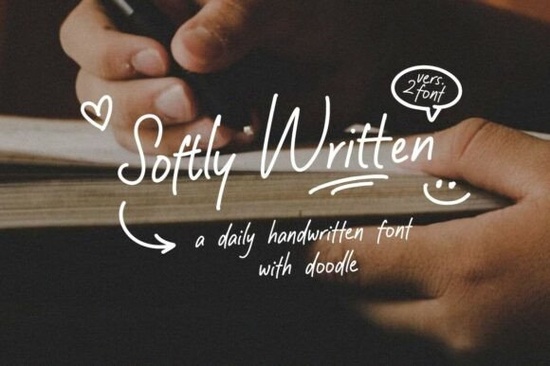
If you’ve ever wanted your designs to feel like a handwritten note passed between friends, Softly Written Font might be exactly what you’re looking for. It’s the kind of typeface that doesn’t shout it whispers. With smooth, natural strokes and little doodle-like flourishes tucked into letters here and there, this font brings warmth to invitations, greeting cards, packaging, or even social media graphics. Whether you’re designing for print-on-demand products, branding a small business, or just making something personal for a friend, Softly Written adds a relaxed, honest charm without trying too hard.
What makes this font feel so personal?
The secret is in the rhythm. Each letter flows like it was written with a favorite pen on textured paper not perfectly aligned, but comfortably imperfect. There’s no stiffness here. The playful curves and subtle variations mimic real handwriting, which is why it works especially well for projects meant to feel intimate: think baby shower invites, café menus, journal covers, or Etsy shop logos. If you’ve used fonts like August Wedding or Daisy, you’ll notice how Softly Written sits somewhere between elegant script and casual sketch perfect when you want friendly, not formal.
Where does it work best?
This isn’t a font for corporate reports or tech bro pitch decks. But if your project needs personality? Absolutely. Here are some places where it shines:
- Wedding stationery especially for laid-back, garden, or boho themes. Pair it with something clean like Francy Tiguan for contrast.
- Product labels handmade soap, candles, tea blends, or bakery items benefit from its cozy, artisanal feel.
- Social media quotes overlaying soft pastel backgrounds with this font gives your posts an approachable, human touch.
- Personalized gifts mugs, tote bags, or journals printed with names or short messages look instantly more thoughtful.
How do I pair it with other fonts?
Because Softly Written has such a distinct character, pairing it with simpler sans-serifs or minimal serifs helps keep things balanced. Avoid using it alongside other highly decorative scripts it can get visually noisy. Instead, try combining it with neutral fonts for body text or headlines. For example, if you’re working on a wedding suite, you might use August Wedding for the main title and Softly Written for the RSVP details or thank-you notes. Or, if you’re going for a cheerful, colorful vibe, layer it over illustrations using Daisy for accent words.
Is it easy to use for beginners?
Yes and that’s part of its appeal. You don’t need advanced typography skills to make it look good. Most design tools (Canva, Adobe Express, Silhouette Studio) handle OpenType features automatically, so ligatures and alternates will show up naturally as you type. Just install the font, start typing, and let the letterforms do their thing. If you’re new to fonts like this, try starting with short phrases “hello sunshine,” “made with love,” “just because” to see how the style enhances the message without overwhelming it.
Any tips for getting the most out of it?
A few small tweaks go a long way:
- Spacing matters. Give your text a little extra breathing room tight kerning can make the letters feel cramped and lose their relaxed flow.
- Color choice counts. Soft earth tones, muted pastels, or warm neutrals complement the font’s gentle energy better than neon or harsh black.
- Less is more. Use it for emphasis, not paragraphs. A whole page in Softly Written can feel visually tiring save it for headlines, accents, or short sentiments.
Ready to try it?